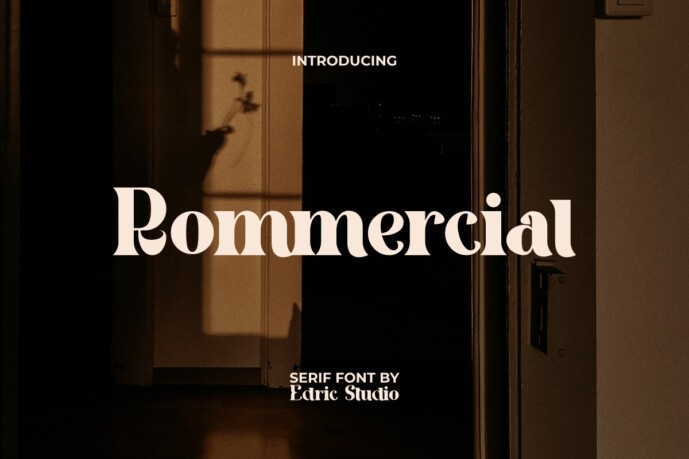
Rommercial Font
Designer: EdricStudio
Rommercial Font is a stunning classic serif display font with a charming medieval style. This font will give an authentic feel to your design, such as apps, billboards, blogs, brochures, cover, flyer, header, logos, packaging design, poster, product label, quotes, screen print, signage, stationery, sticker, title, website, and much more.